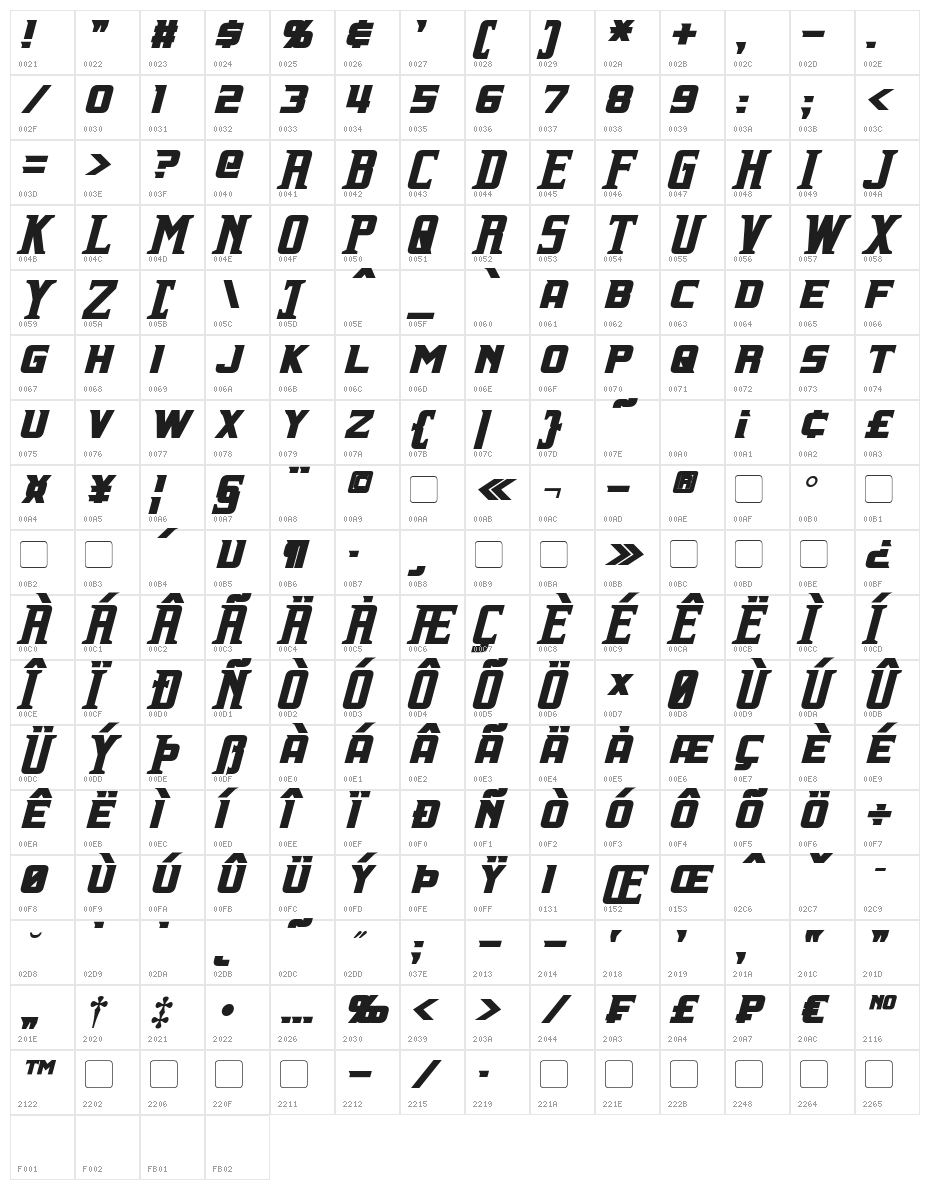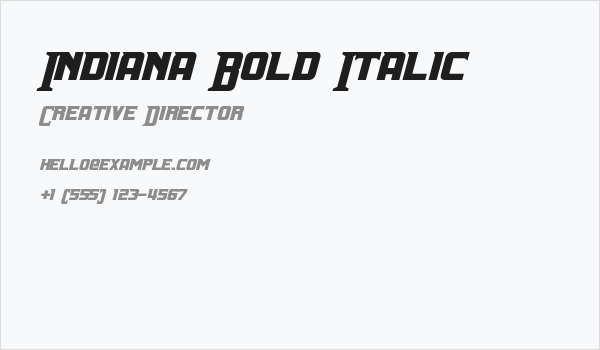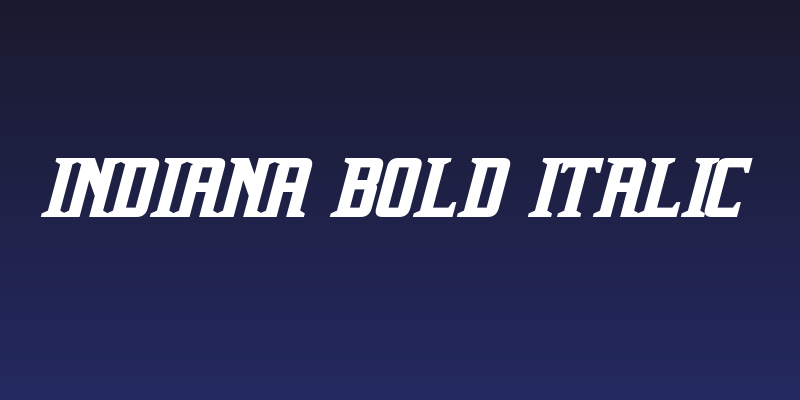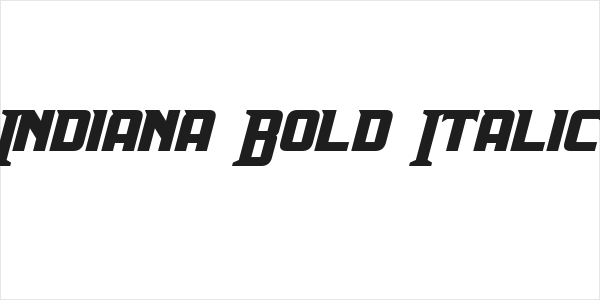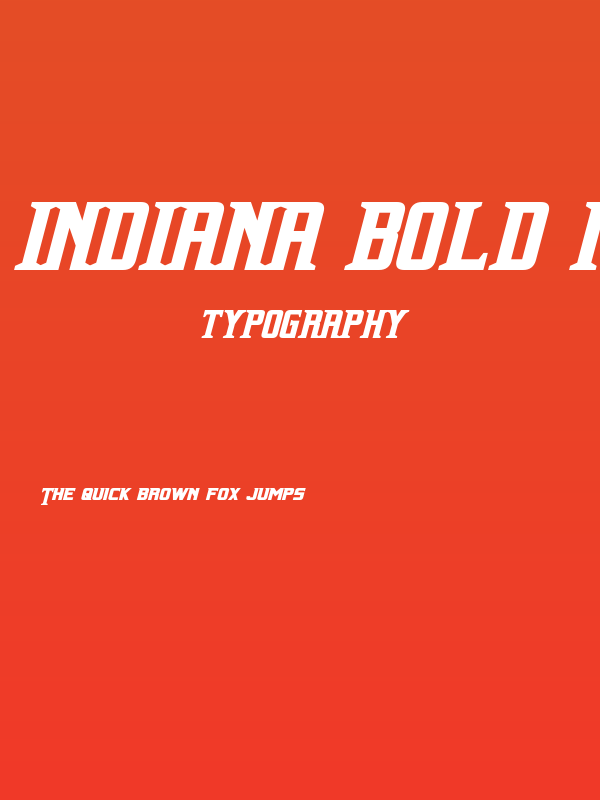
Indiana Bold Italic Font
Indiana Bold Italic Description
This font exhibits a bold and italicized style, characterized by its strong, angular lines and dynamic slant. The uppercase and lowercase letters maintain a consistent weight, providing a sense of uniformity and strength. The numerals and special characters are designed with the same boldness, ensuring they stand out prominently. The font's design is modern and assertive, making it ideal for projects that require a commanding presence. Its italic nature adds a sense of motion and urgency, making it suitable for headlines and attention-grabbing text. The overall style is both contemporary and versatile, allowing it to be used in various design contexts.
| Proposed Projects | Ideal for sports branding, dynamic posters, and impactful headlines. |